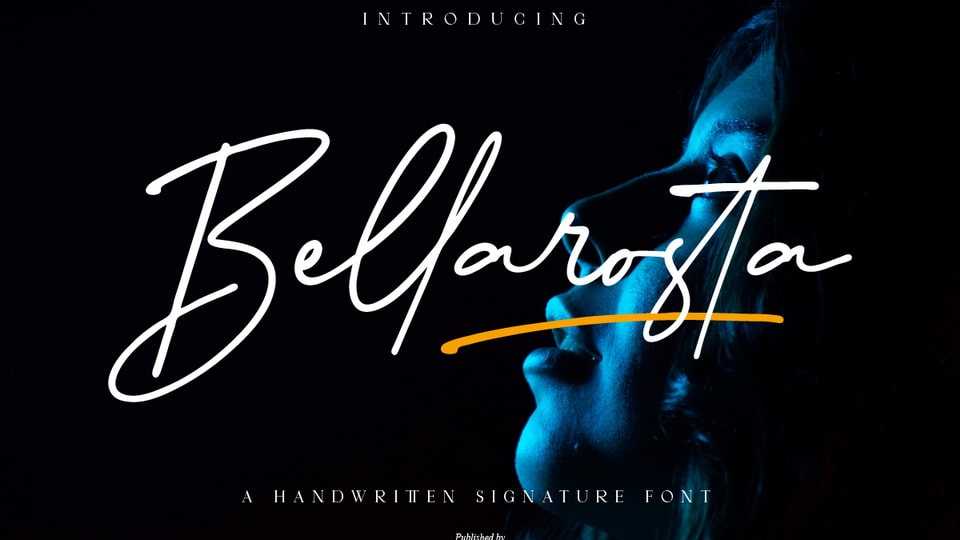
Download Bellarosta font, a signature script typeface with beautiful strokes. Bellarosta font is impressive and features a clean and elegant, professionally shaped, and as a result, it will easily match a variety of creations that require a different touch.